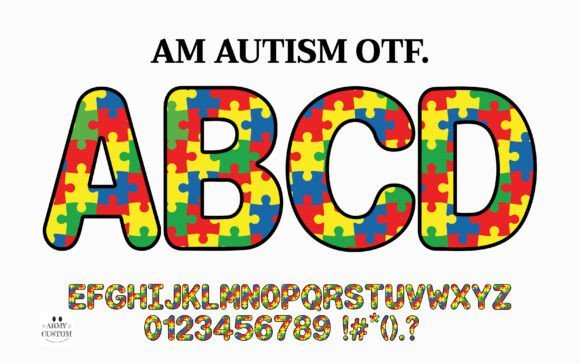
Embracing Unity and Recognition with the AM Autism Font
As a designer, have you ever found yourself struggling to put into words the emotions and values behind a social cause? For me, it’s often the smallest moments of inspiration that spark a creative breakthrough. Like the time I stumbled upon a vibrant autism awareness campaign, and the bold, striking lettering of the AM Autism Font instantly captured my attention. Its powerful visual narrative and meaningful message resonated deeply, leaving an indelible mark on my design journey.
Developed with the purpose of enhancing projects tied to Autism Awareness Month, the AM Autism Font embodies unity, recognition, and affection. Its striking lettering makes it an ideal choice for designers looking to create impactful visual narratives that capture the spirit of the cause. Whether you’re working on a campaign, creating awareness materials, or simply want to show your support, the AM Autism Font is a valuable tool in your design arsenal.
Key Features of “Am Autism Font”
- Size and Resolution: Designed to be highly legible at various font sizes, with optimal readability at 12-24 points and resolutions up to 300 DPI.
- Unique Characteristics: Features a distinctive, child-friendly design with rounded edges and soft lines, making it suitable for use in educational materials and children’s content.
- Language Support: Supports multiple languages, including Latin, Cyrillic, and Greek alphabets, allowing for global application in various contexts.
- Font Weight and Style: Offers a range of font weights, from light to bold, as well as italic and regular styles, providing flexibility for designers and typographers.
- Scalability: Optimized for use in digital and print media, allowing for seamless scaling and rendering across various devices and platforms.
Am Autism Font Review
As a designer, I appreciate the efforts to create a font that raises awareness about autism. The Am Autism Font is a bold and attention-grabbing typeface that effectively conveys its message. ✨ Here are some aspects that work well:
- Unique and recognizable design: The font’s distinctive shape and style make it easily identifiable and memorable.
- Impactful for awareness campaigns: The Am Autism Font is perfect for spreading awareness about autism, making it a valuable asset for non-profit organizations and advocacy groups.
- High contrast: The font’s bold and clear design ensures that the message is easily readable, even at a distance.
- Limited font sizes: The font may not be suitable for body text or small captions, as it can become overwhelming.
- Not suitable for formal documents: The Am Autism Font’s bold design may not be appropriate for formal documents or professional communications.
Overall, I think the Am Autism Font is a powerful tool for raising awareness about autism. While it has some limitations, its unique design and high contrast make it a valuable asset for advocacy and awareness campaigns. With careful consideration of its uses, the Am Autism Font can be a valuable addition to any designer’s toolkit.
Use the Am Autism Font to create awareness and promote acceptance of autism.
Pair the font with colorful and engaging graphics to make your design stand out.
Experiment with different font sizes and colors to create visual hierarchy and emphasis.
Use the Am Autism Font for:
Awareness campaigns and fundraising events.
Autism acceptance and inclusion initiatives.
Education and advocacy materials.
Alternatives to “Am Autism Font”
1. OpenDyslexic
OpenDyslexic is an open-source font designed to help individuals with dyslexia read more comfortably. It’s also suitable for use in autism-friendly designs, as it provides a clear and readable font. Use OpenDyslexic for body text in autism-friendly materials, such as educational resources or social stories.
Compared to Am Autism Font, OpenDyslexic is more widely available and has a larger community of users. While Am Autism Font is specifically designed for autism, OpenDyslexic’s readability features make it a versatile choice for various reading needs.
What is the recommended font size for using the Am Autism Font in digital media?
For optimal readability, we recommend using the Am Autism Font at a minimum size of 18 points (12 points for body text) in digital media. This will ensure that the font is legible on various devices and screen sizes.